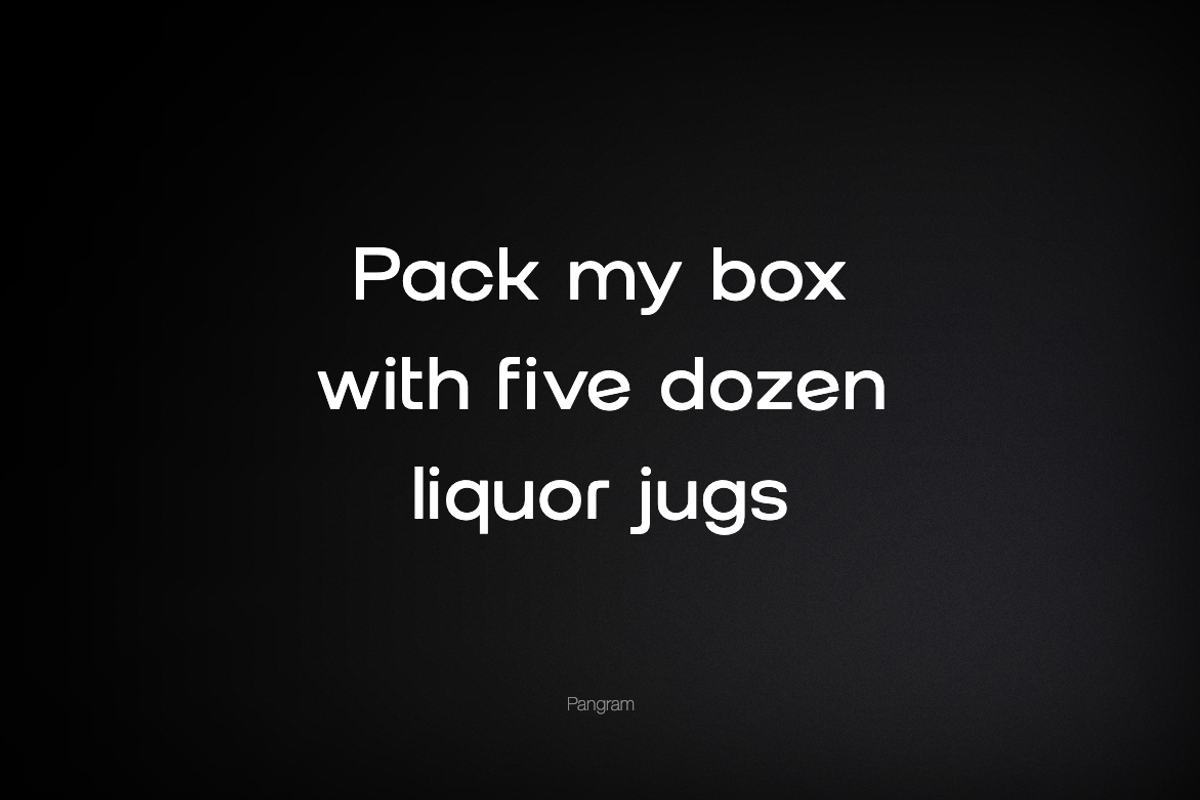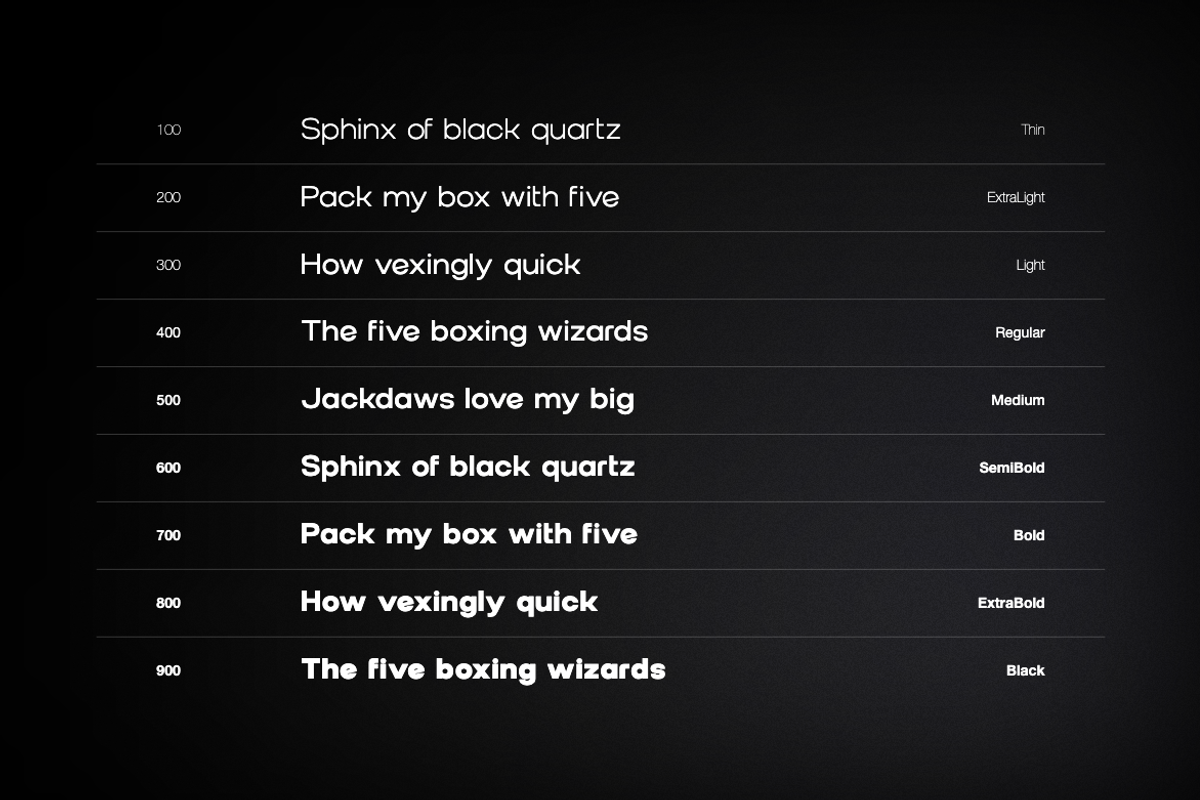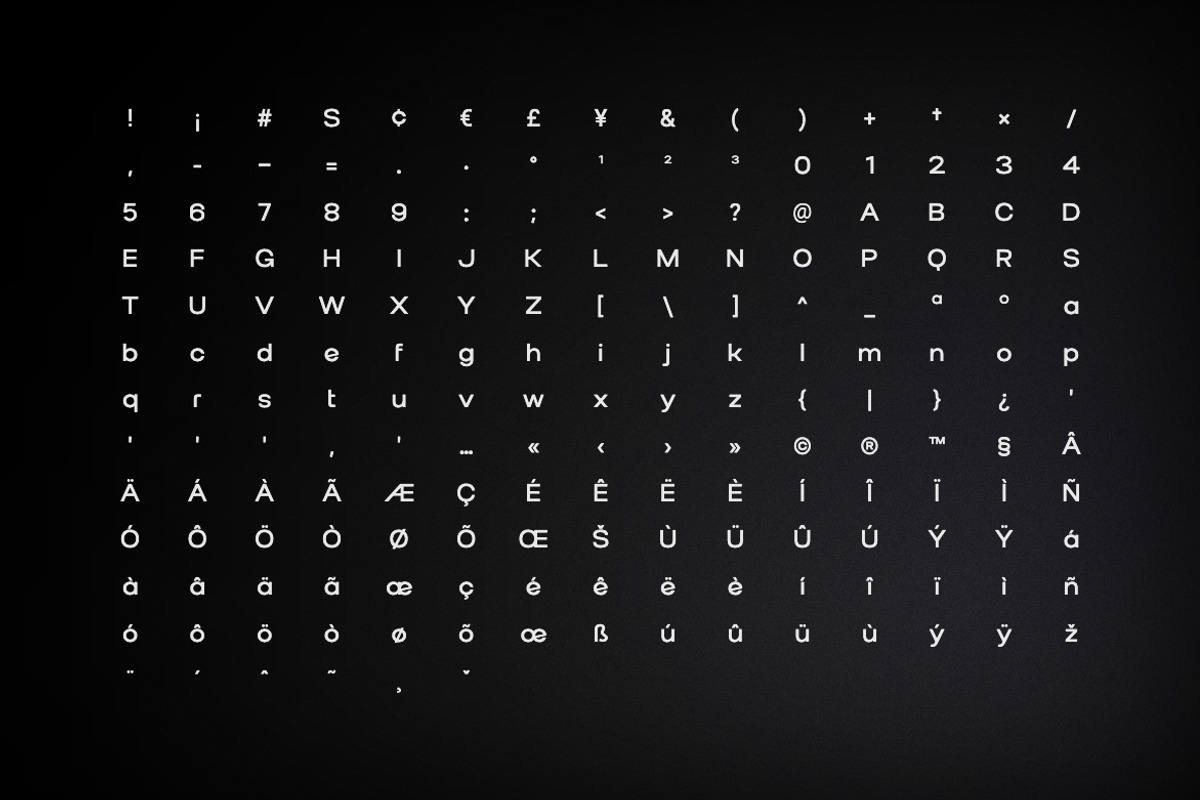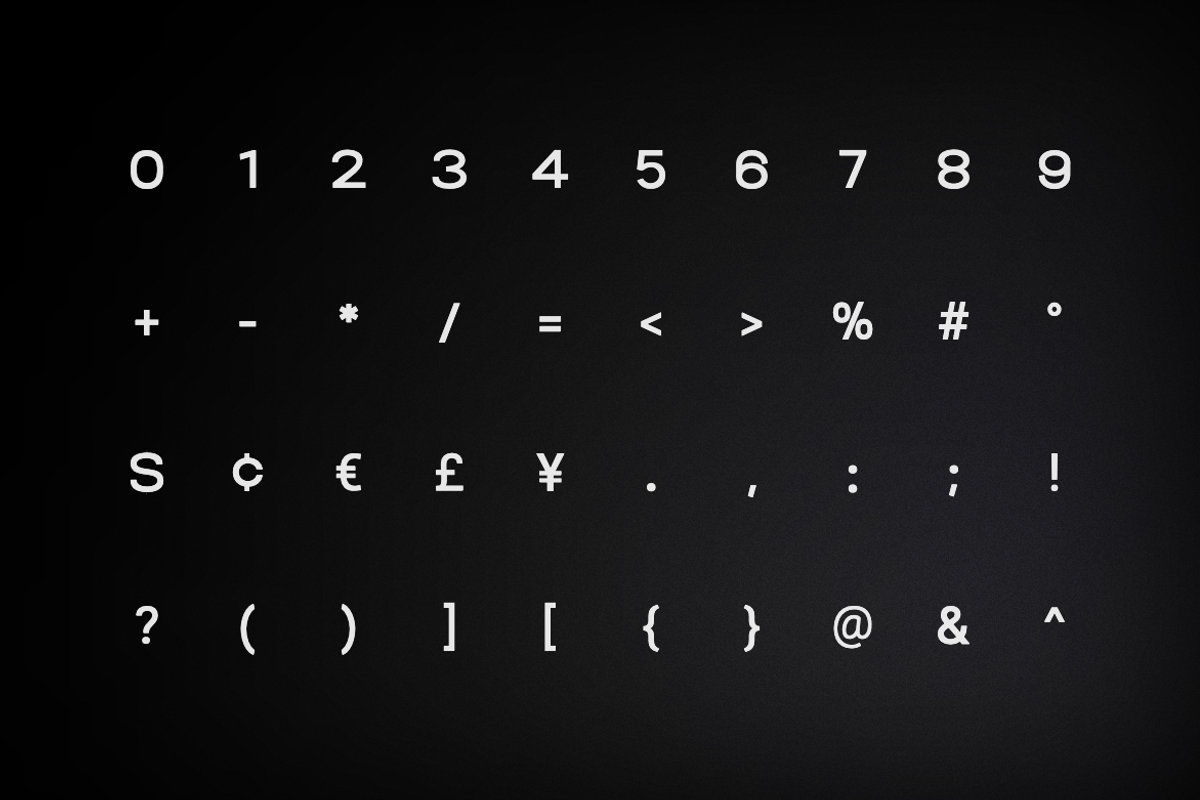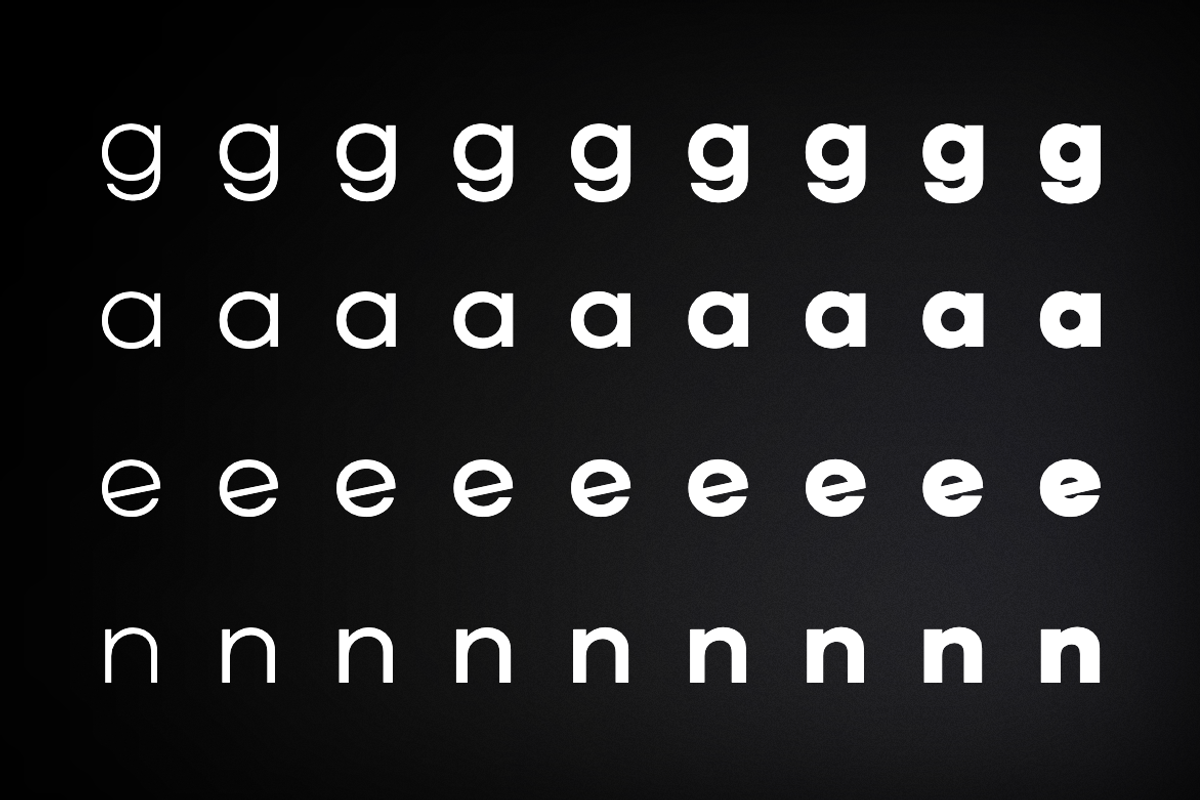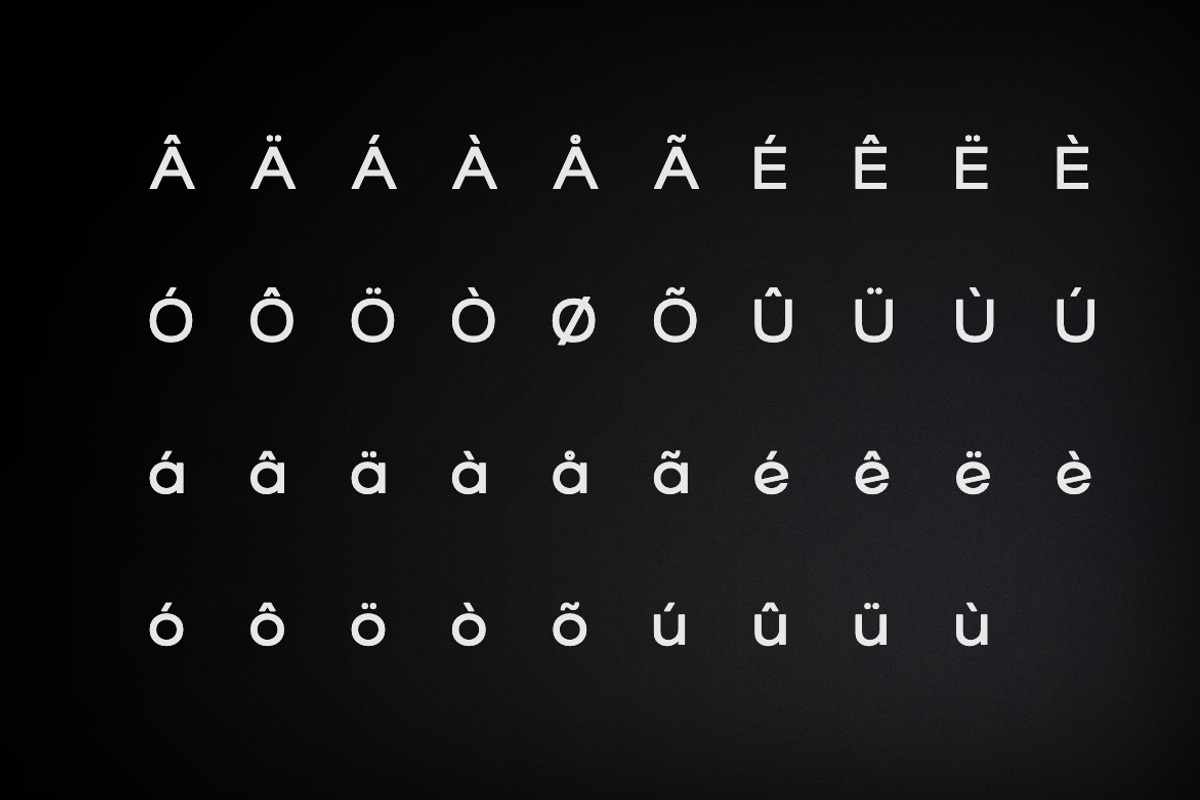
Elvon Grotesk - A Modern Grotesk
Elvon Grotesk is a modern grotesk sans-serif typeface designed with clarity, versatility, and contemporary aesthetics in mind. Inspired by the timeless principles of classic grotesk typography, it combines clean letterforms, balanced proportions, and refined details to create a professional and highly adaptable type system.
With its neutral character and excellent readability, Elvon Grotesk performs effortlessly across a wide range of applications, from digital interfaces and branding projects to editorial layouts and marketing materials. Whether used for bold headlines, user interfaces, or long-form text, it delivers a confident and modern visual voice.
Carefully crafted for consistency and functionality, Elvon Grotesk offers a structured typographic system suitable for designers, agencies, startups, and businesses seeking a clean and reliable sans-serif family.
Elvon Grotesk includes extended Latin language support and a comprehensive set of accented characters, making it suitable for multilingual projects across numerous languages worldwide. The family includes 9 weights, ranging from Hairline to Black, each accompanied by matching italics.